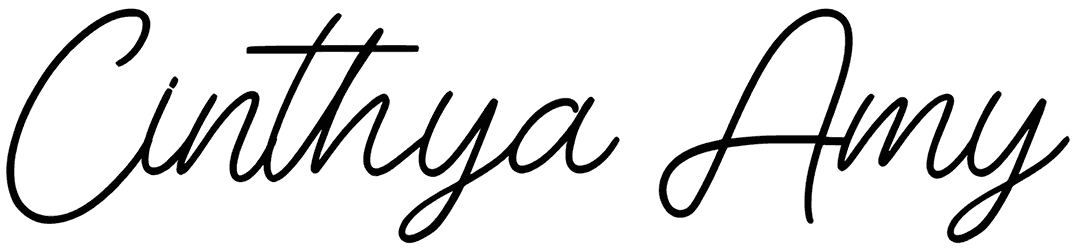
Cinthya Amy Font
Cinthya Amy is an incredibly handwritten font that is masterfully created to become your assistant in designing creative projects such as posters, magazines, headers of web pages, social media posts, and flyers. This script font has a cursive design and an elegant flow that makes it look really stylish, thus you can instill a sense of softness, delicacy, momentum, and personalization in the audience’s mind.